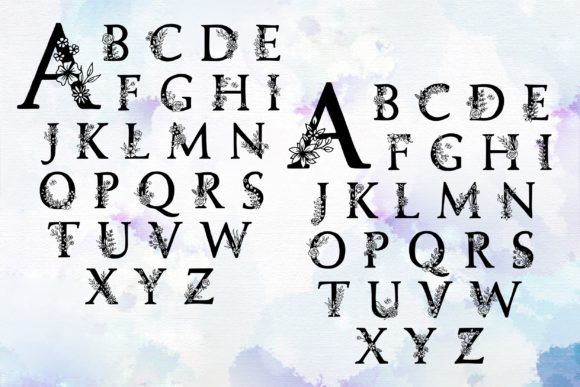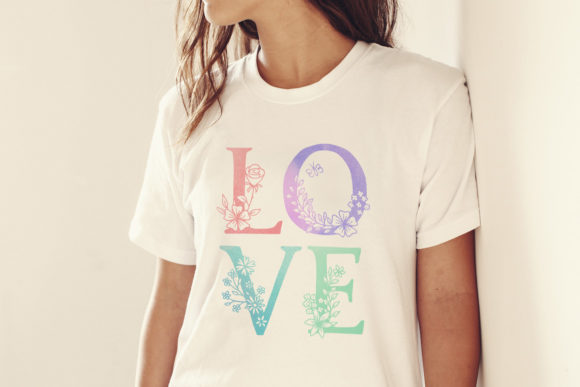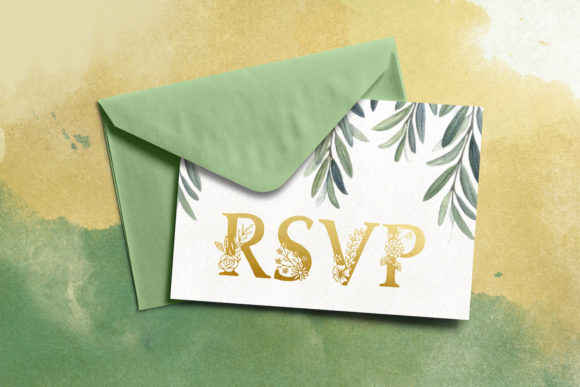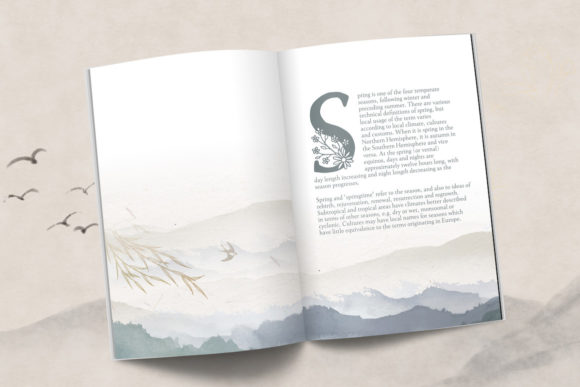
Bahor Font: Elevate Your Designs with a Gorgeous Decorative Font
Bahor is a stunning decorative font that can add a touch of elegance and sophistication to any design project. With its unique and captivating style, Bahor Font is perfect for designers and crafters looking to create visually appealing and distinctive content. In this article, we’ll explore the features and benefits of Bahor Font, and how you can confidently add it to your favorite creations to achieve amazing results.
What is Bahor Font?
Bahor Font is a decorative font designed to make a statement. Its gorgeous and intricate design makes it perfect for use in a variety of projects, from digital designs to print materials. The font’s unique style is sure to grab attention and leave a lasting impression on your audience. Whether you’re a professional designer or a crafter, Bahor Font is an excellent addition to your font collection.
Key Features of Bahor Font
- Unique and Decorative Design: Bahor Font boasts a distinctive and decorative design that sets it apart from other fonts.
- Elegant and Sophisticated: The font’s elegant and sophisticated style makes it perfect for use in high-end designs and projects.
- Highly Versatile: Bahor Font can be used in a variety of projects, from digital designs to print materials, and is suitable for use in a range of industries.
Using Bahor Font in your designs can have a significant impact on the overall look and feel of your project. Some of the benefits of using Bahor Font include:
- Stand Out from the Crowd: Bahor Font’s unique design ensures that your project will stand out from the crowd and grab attention.
- Enhance Your Brand: The font’s elegant and sophisticated style can help to enhance your brand’s image and reputation.
- Increase Engagement: The font’s decorative design can help to increase engagement and interaction with your audience.
Tips and Tricks for Using Bahor Font
Here are some tips and tricks for using Bahor Font:
- Use it Sparingly: Use Bahor Font sparingly to avoid overwhelming your audience.
- Pair it with Other Fonts: Pair Bahor Font with other fonts to create a unique and visually appealing combination.
- Keep it Simple: Keep your design simple and clean to allow Bahor Font to take center stage.
Bahor Font is a gorgeous and decorative font that can add a touch of elegance and sophistication to any design project. With its unique and captivating style, Bahor Font is perfect for designers and crafters looking to create visually appealing and distinctive content. By following the tips and tricks outlined in this article, you can confidently add Bahor Font to your favorite creations and achieve amazing results.